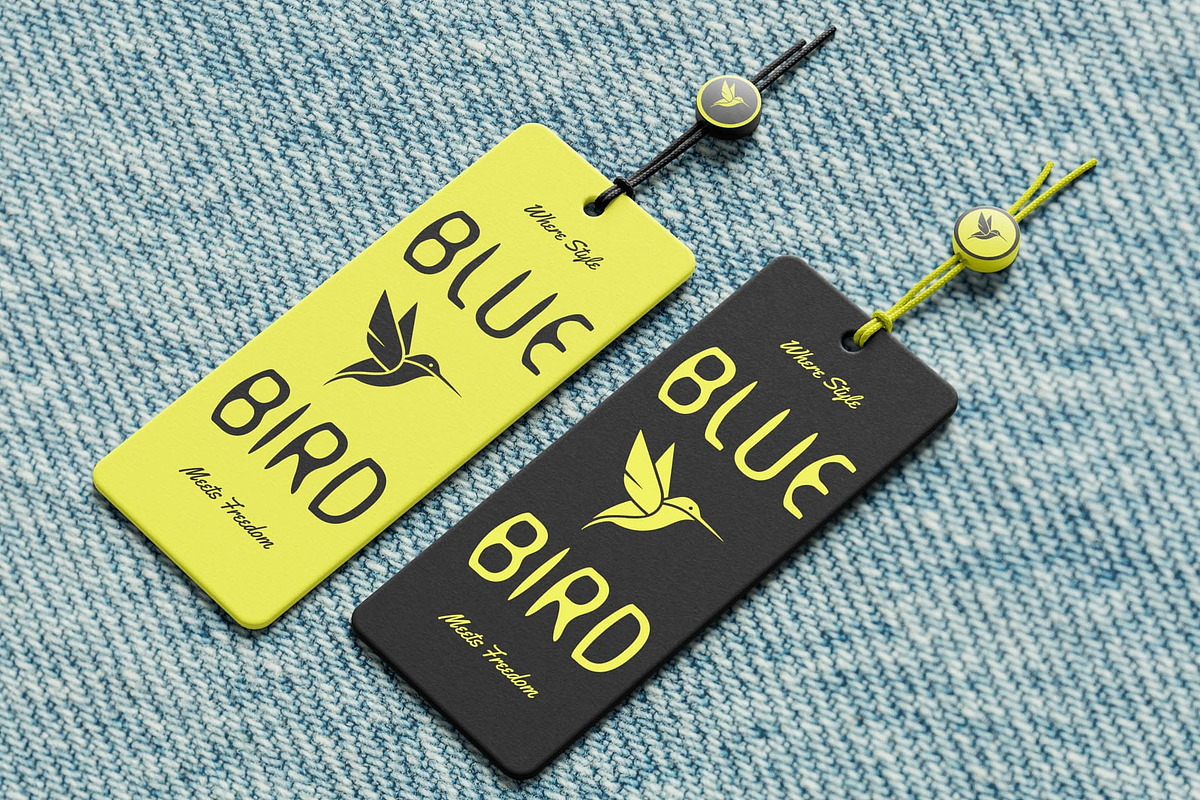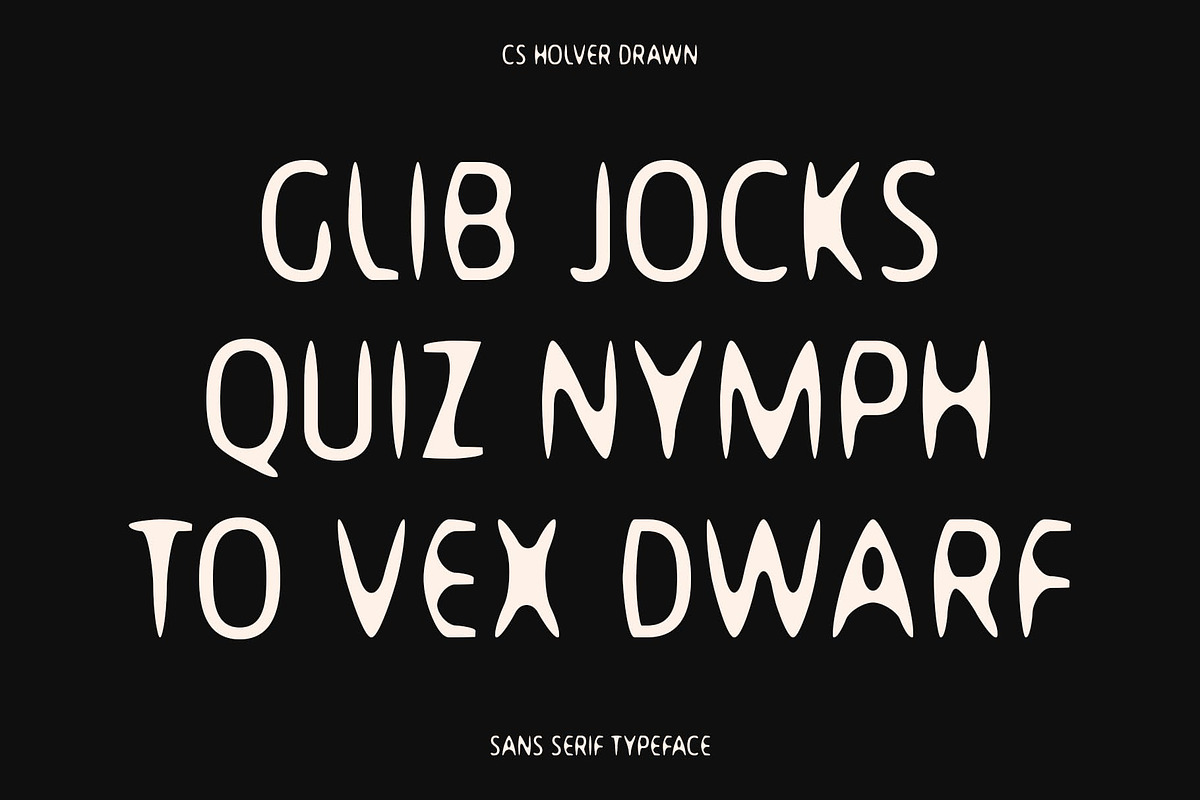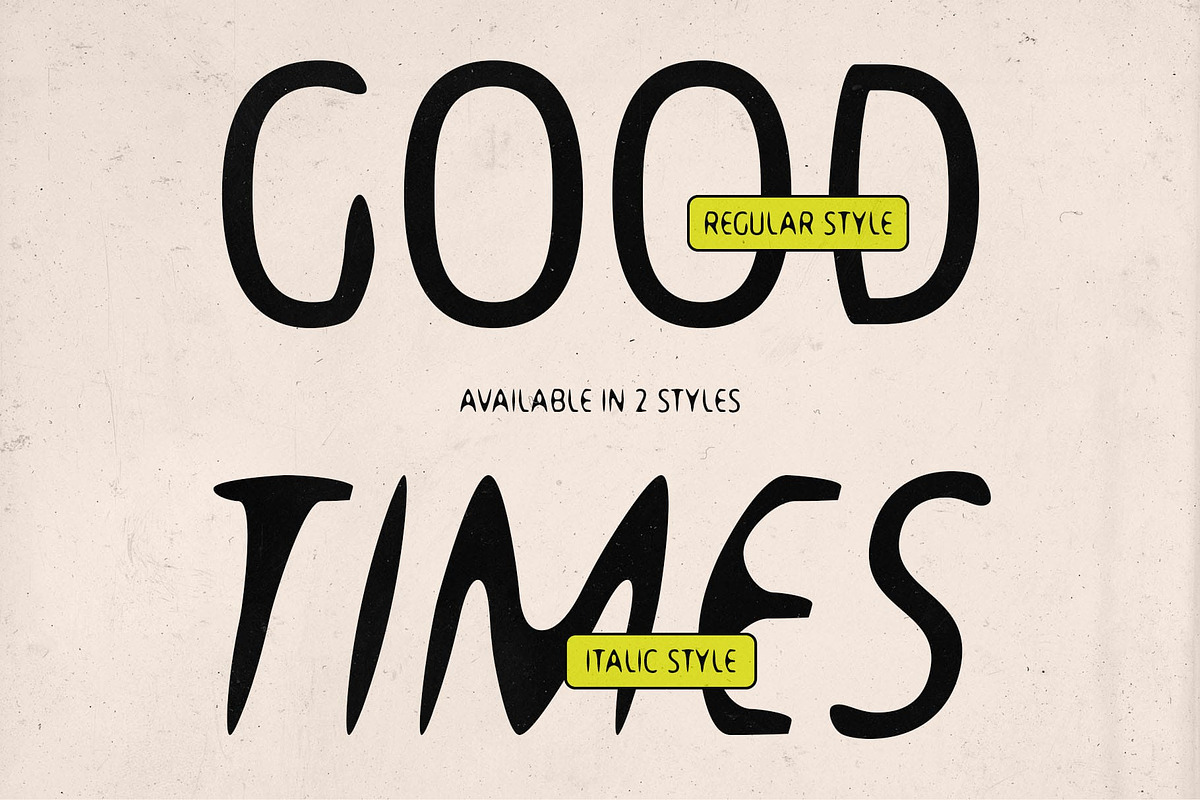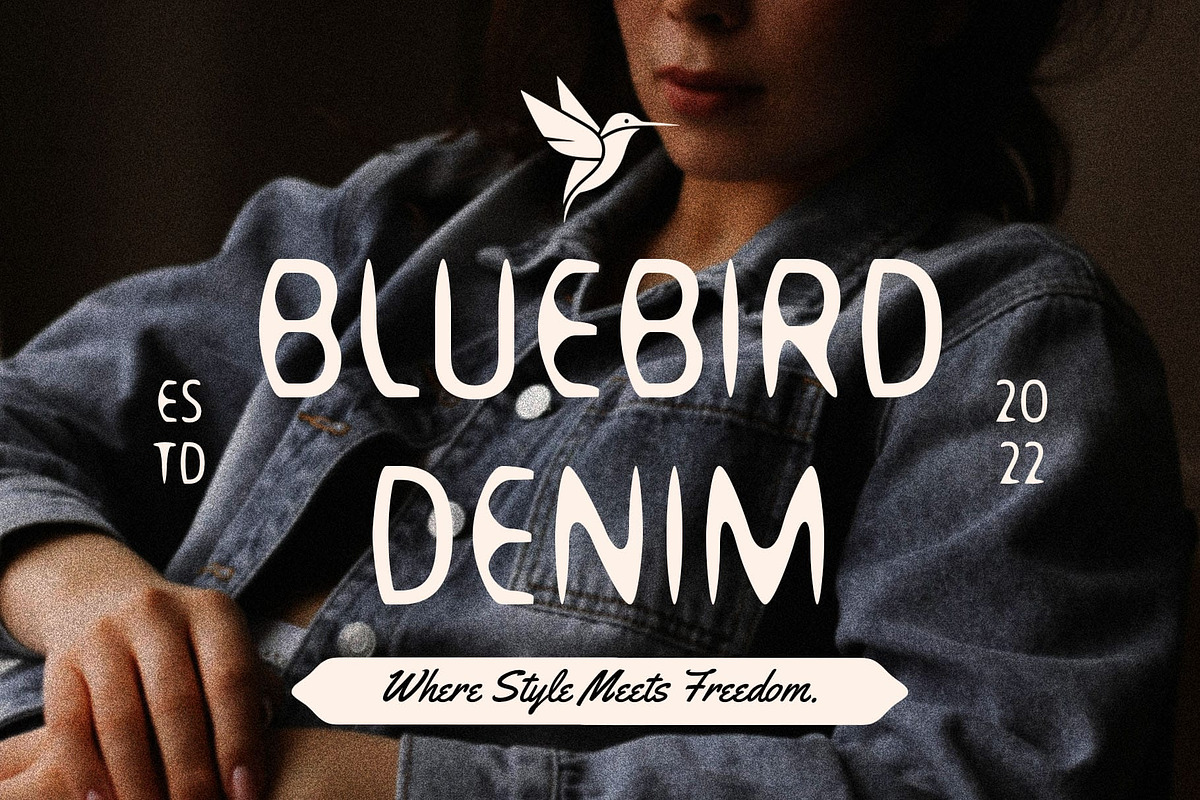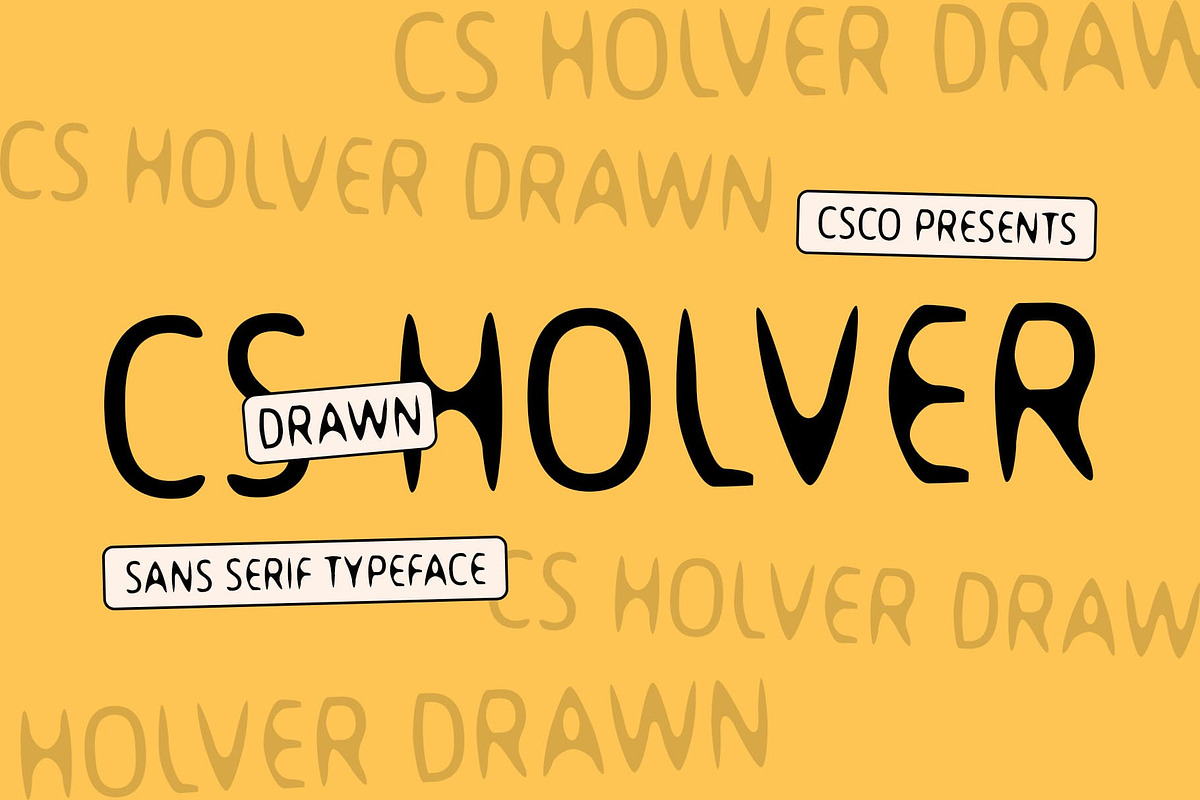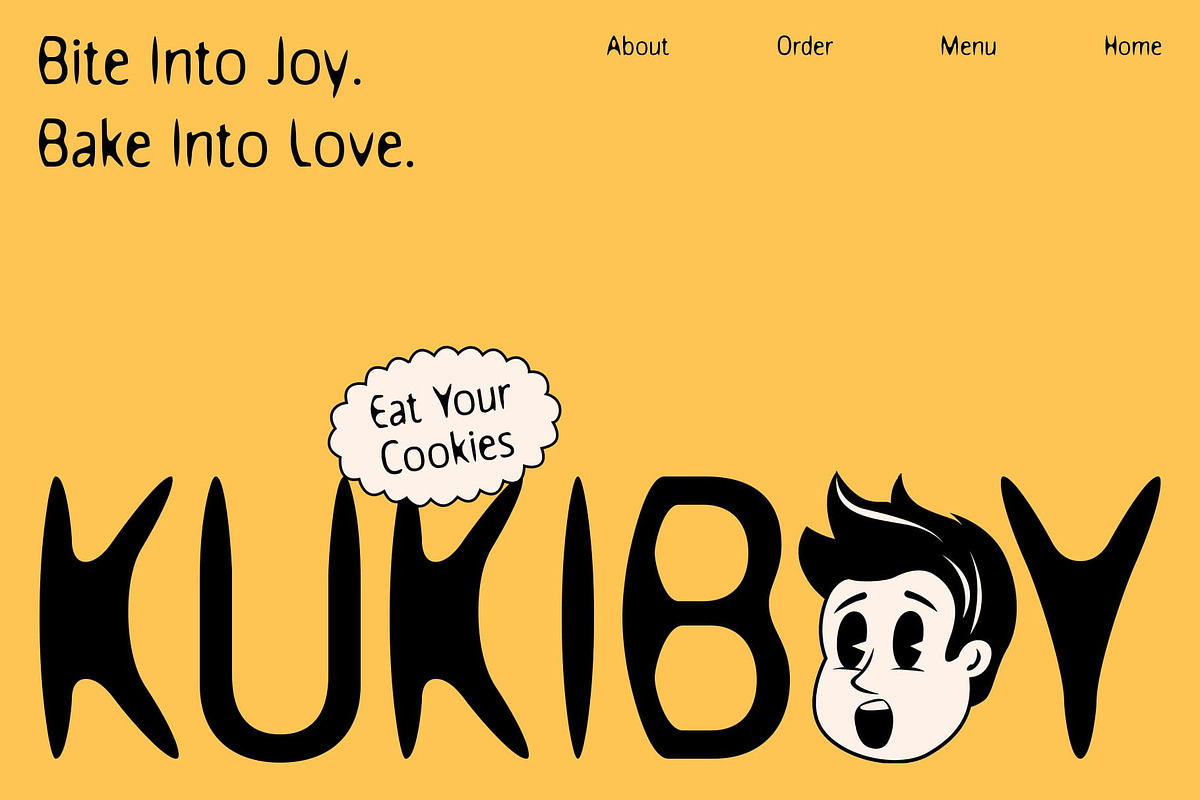
CS Holver Drawn
CS Holver Drawn Font – A Modern Geometric Sans with Handcrafted Expression
Structured Simplicity Meets Creative Warmth CS Holver Drawn is a modern sans-serif font built on clean geometry and minimalist principles. Its letterforms are rooted in essential shapes—circles, squares, and triangles—bringing clarity, order, and a sense of modern efficiency to your design. This structured approach gives it a confident, contemporary presence, perfect for projects that value both form and function.
A Handcrafted Twist on Precision What sets this balanced and thoughtful font apart is its subtle drawn effect, which introduces a handcrafted, slightly imperfect texture to its otherwise precise and geometric structure. This fusion softens the geometric rigor, creating a visual dialogue between mechanical order and human expression. It’s a font that feels engineered yet personal—refined but approachable.
Versatile for Modern Visual Identities Whether you’re crafting a bold brand identity, curating a sleek editorial layout, or designing a creative portfolio, this minimalist yet artistic font adapts with intention. Its clean, geometric structure ensures exceptional readability and professional clarity, while the expressive drawn details infuse it with distinctive character—setting it apart from conventional sans-serifs.
Perfect Balance of Form and Feeling This modern and structured font embodies the essence of contemporary design—clean lines, thoughtful geometry, and just the right touch of artistic imperfection. It’s ideal for forward-thinking designers who want to communicate clarity without sacrificing personality.